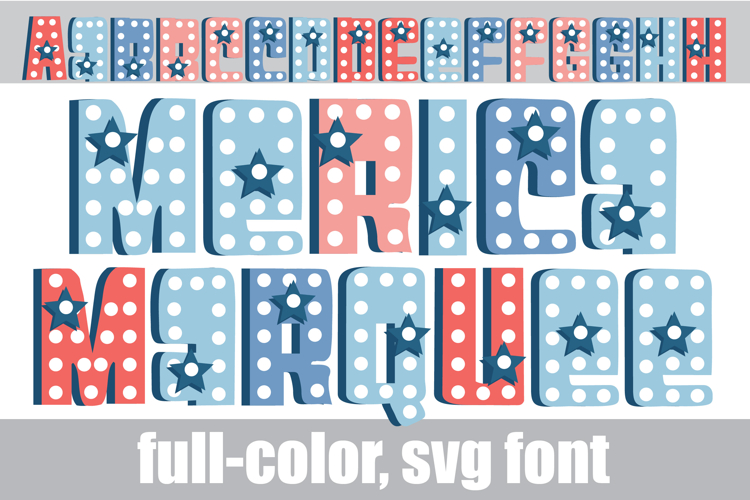
'Merica Marquee Too Color Font
This full-color, font is in a pastel patriotic color palette is a boxy font with marquee lights throughout. There is an alt case of additional colors of each letter that you can access through your system's character map.